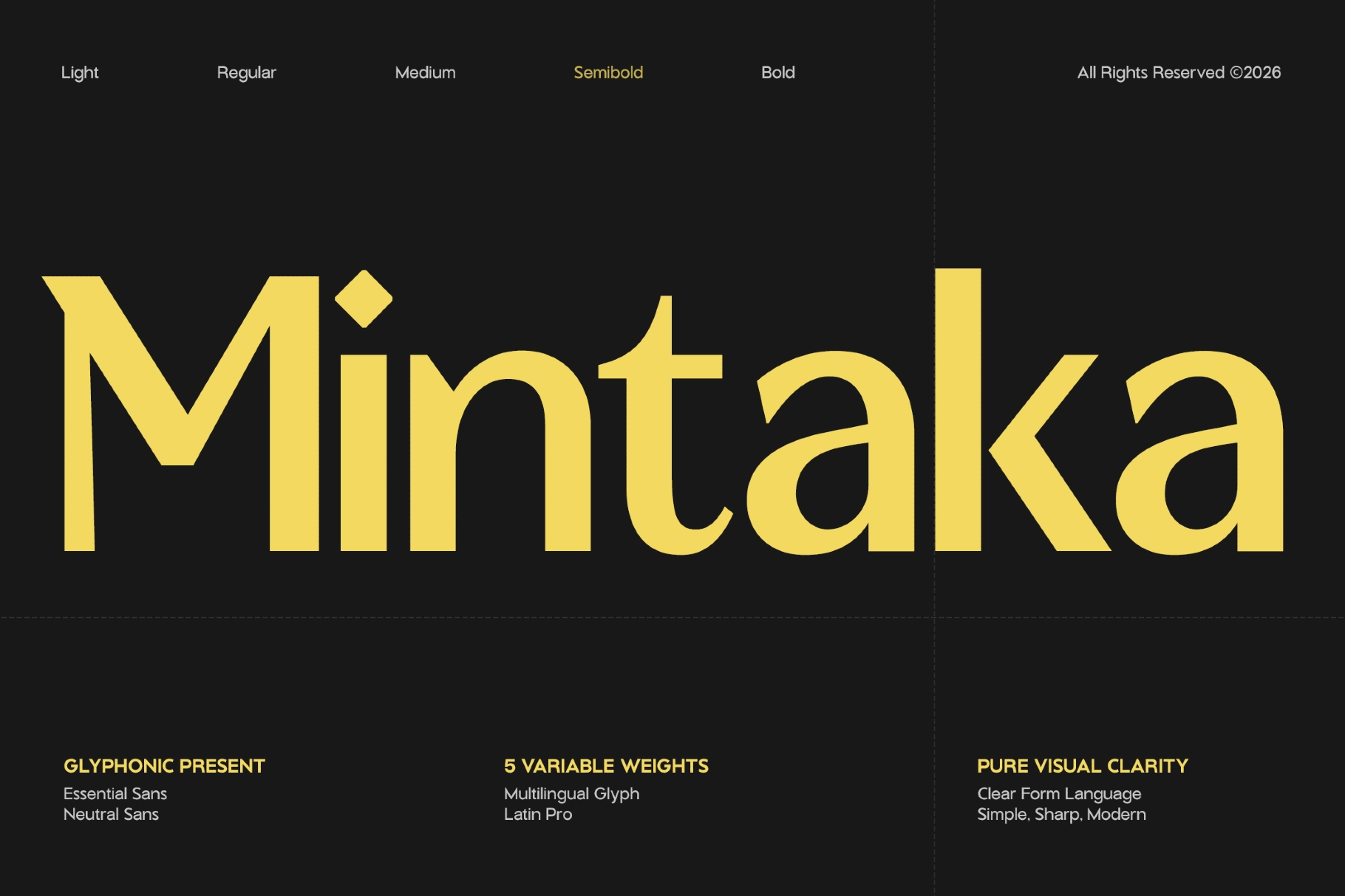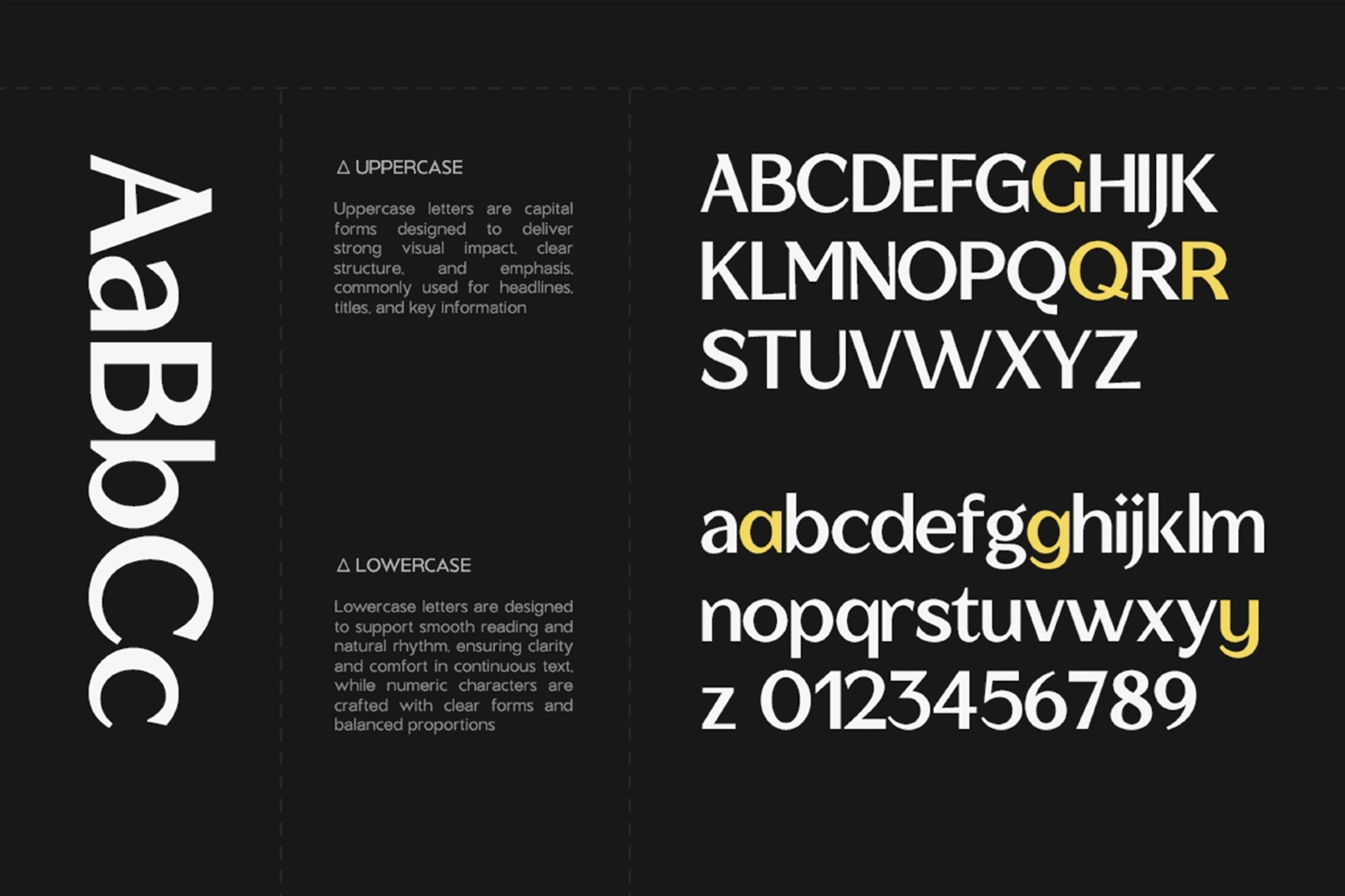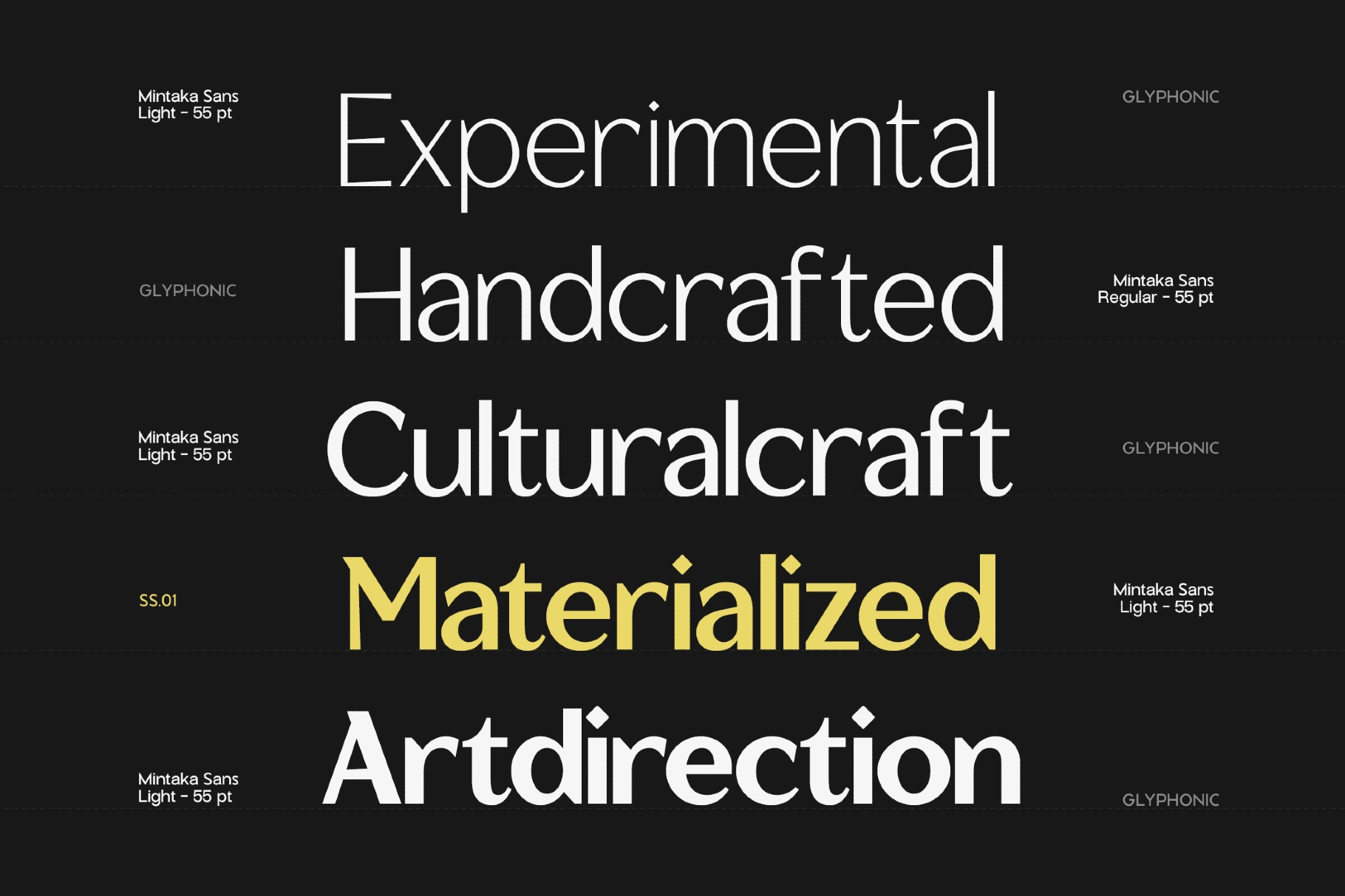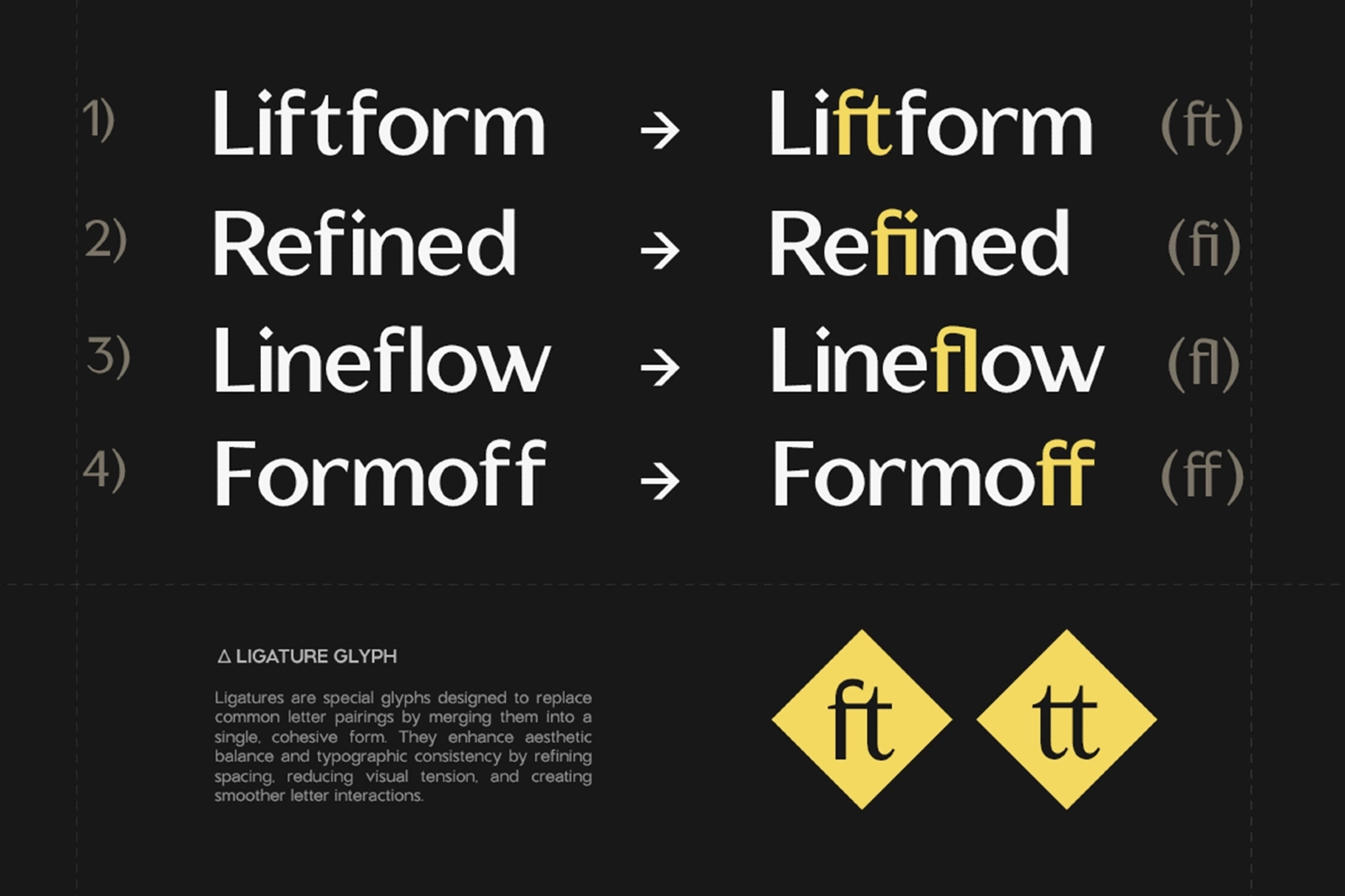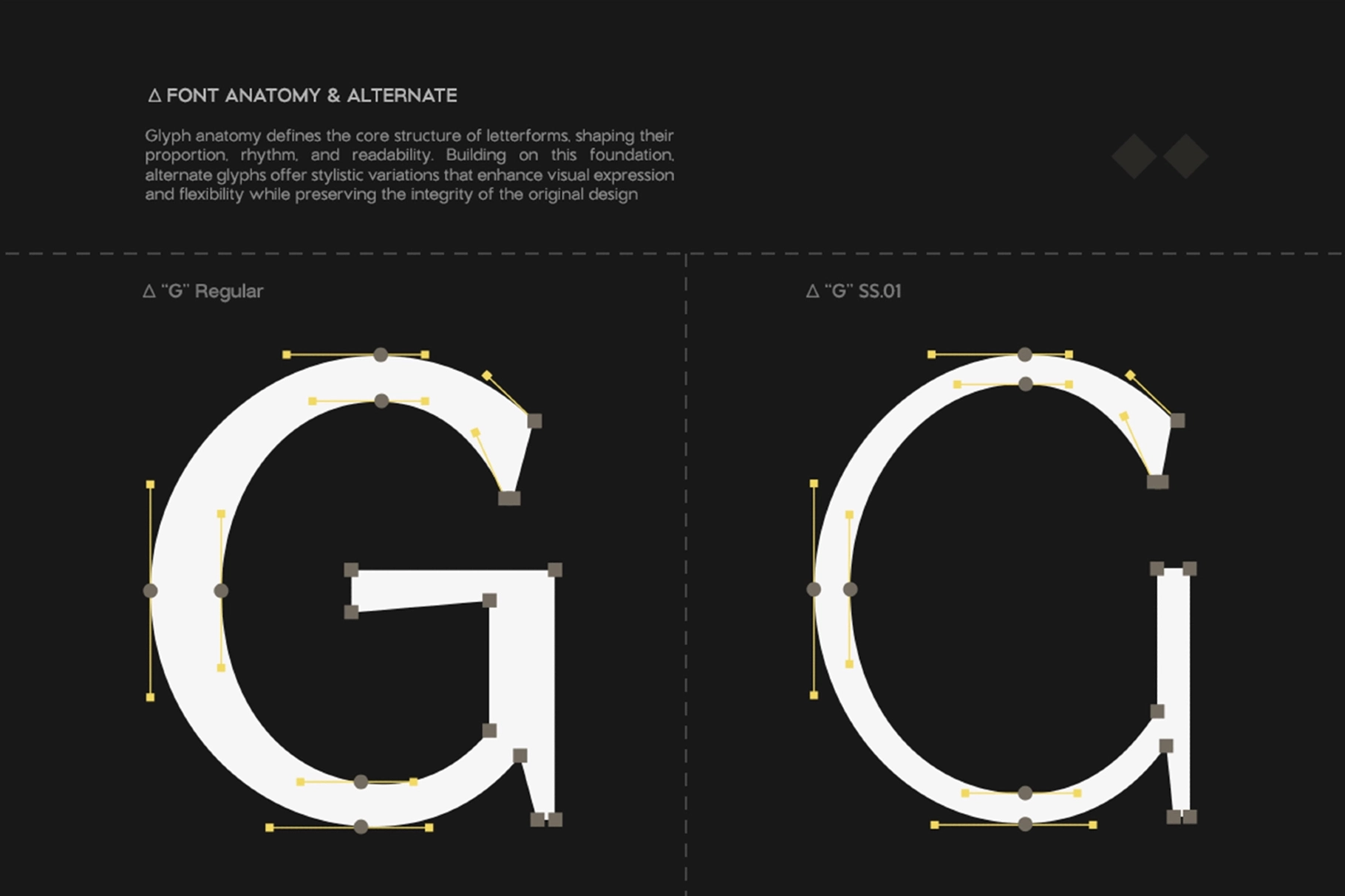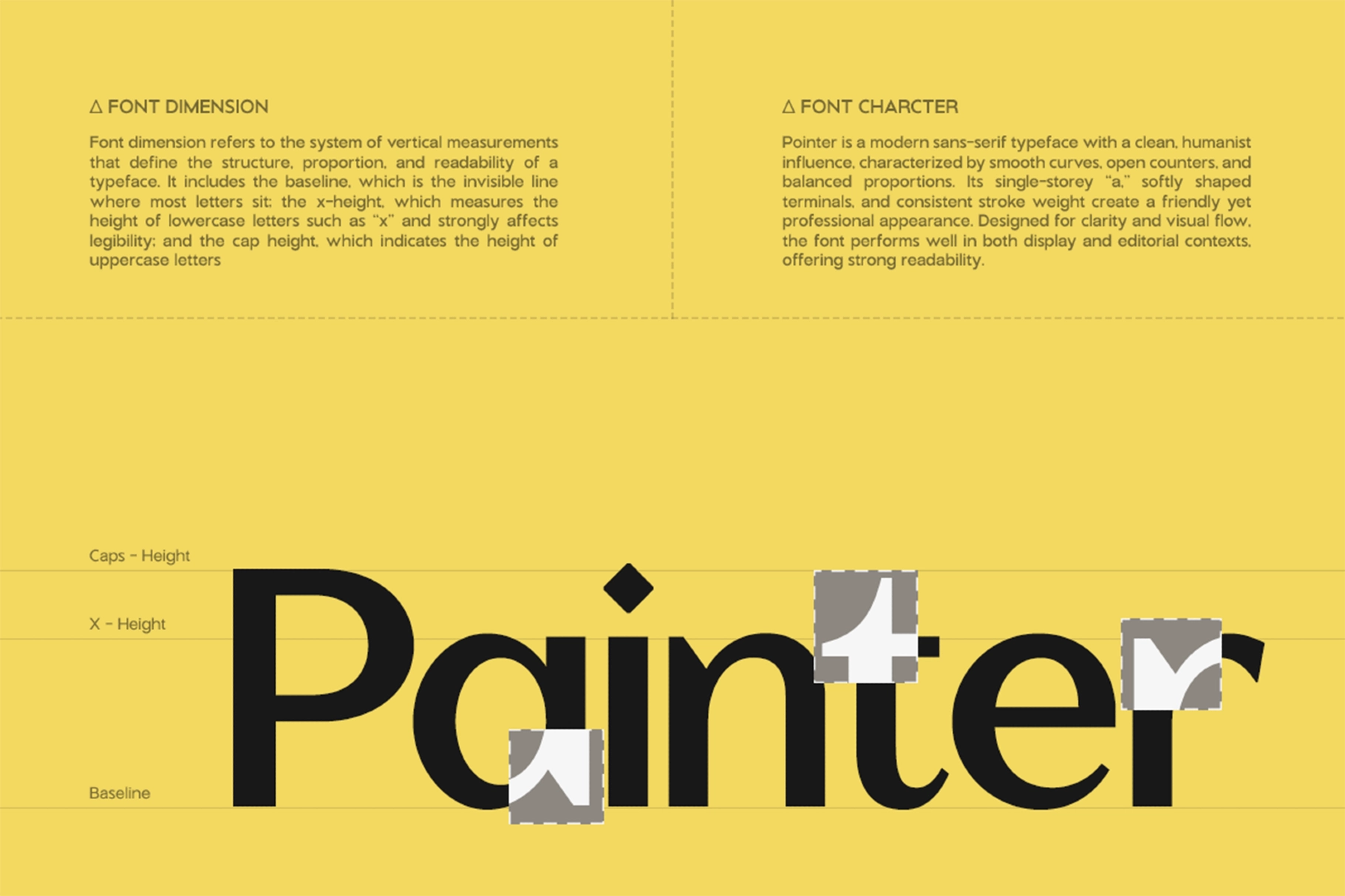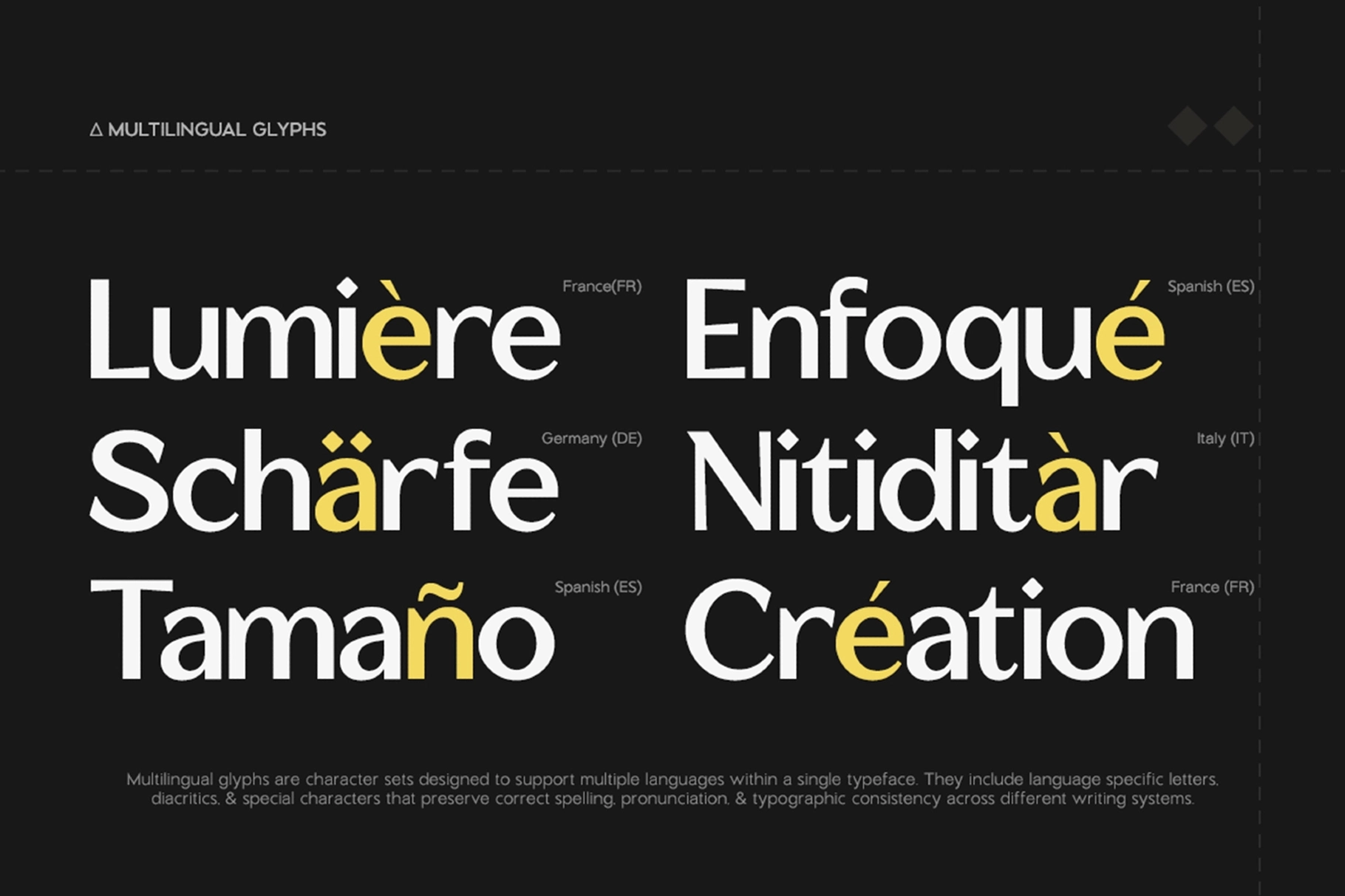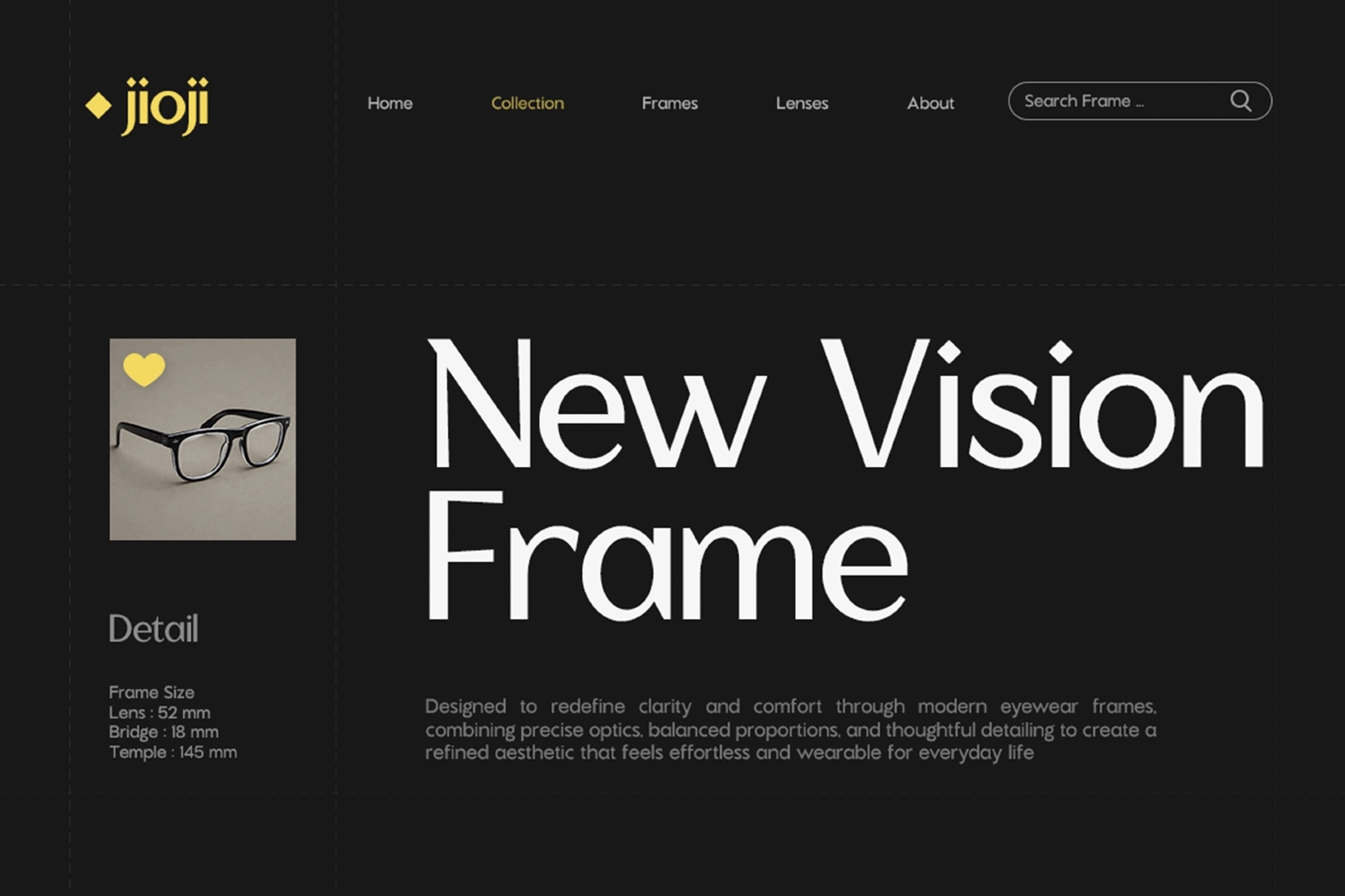
GC Mintaka - Modern Geometric Sans Font
This geometric sans serif typeface is clean, precise, and quietly expressive, with balanced proportions and refined curves that give each composition a polished editorial tone. Its display structure works best in titles, identities, and visual systems that need clarity without going cold.
Mintaka is well suited for fashion branding, magazine headlines, boutique logos, poster design, digital interfaces, beauty packaging, portfolio layouts, social media graphics, lookbooks, product campaigns, event identities, and more. The variable setup with 5 weight options gives designers flexible hierarchy, from light refined titles to bold statement typography with consistent character across the range.
• Variable Font
• 5 weight options
• Numbers & Punctuation
• Multilingual Support: 170+ Languages